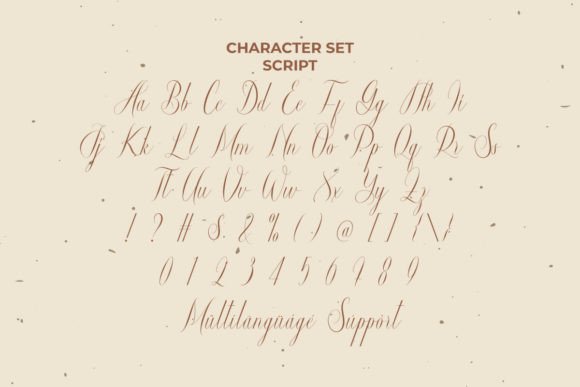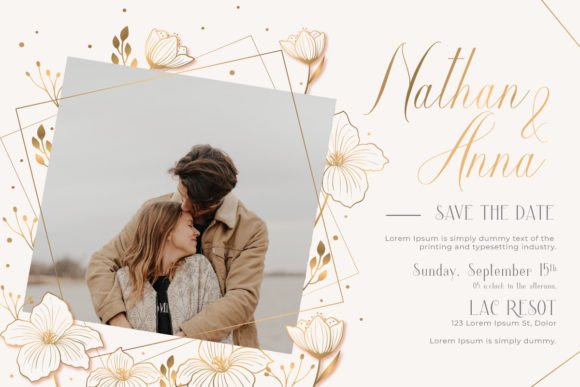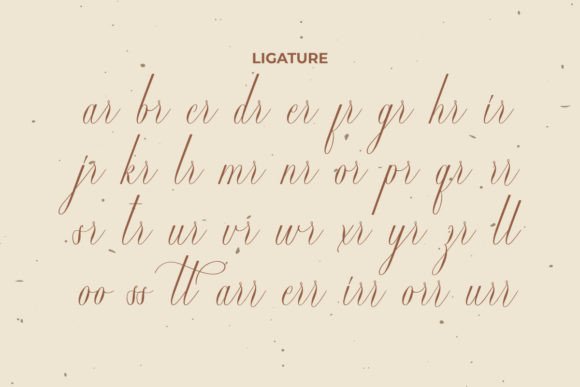
Introduction to Queen California Font Font
Fonts play a crucial role in design, and the Queen California Font font is a typeface that brings both character and versatility to any project. Whether you’re working on a branding project, a website, or a print design, the Queen California Font font offers a unique style that can elevate your work.
Queen California Font is a stunning font duo with two styles of letters, consisting of a luxury serif display with handwriting calligraphy script.
The characters of these two fonts have an elegant and sophisticated look Use for adding a touch of grace, perfect for wedding invitations, social media posts, magazines, or branding materials.
Key Features of Queen California Font Font
Why Choose Queen California Font Font?
The Queen California Font font is more than just a typeface – it’s a design tool that helps you communicate your message with style and clarity. Its unique character set and versatile design make it suitable for a wide range of applications, from elegant invitations to bold headlines.
With its carefully crafted letterforms and balanced proportions, the Queen California Font font ensures readability and visual appeal across all mediums.
What makes Queen California Font font special?
The Queen California Font font stands out with its unique design, exceptional readability, and versatility across various design applications.